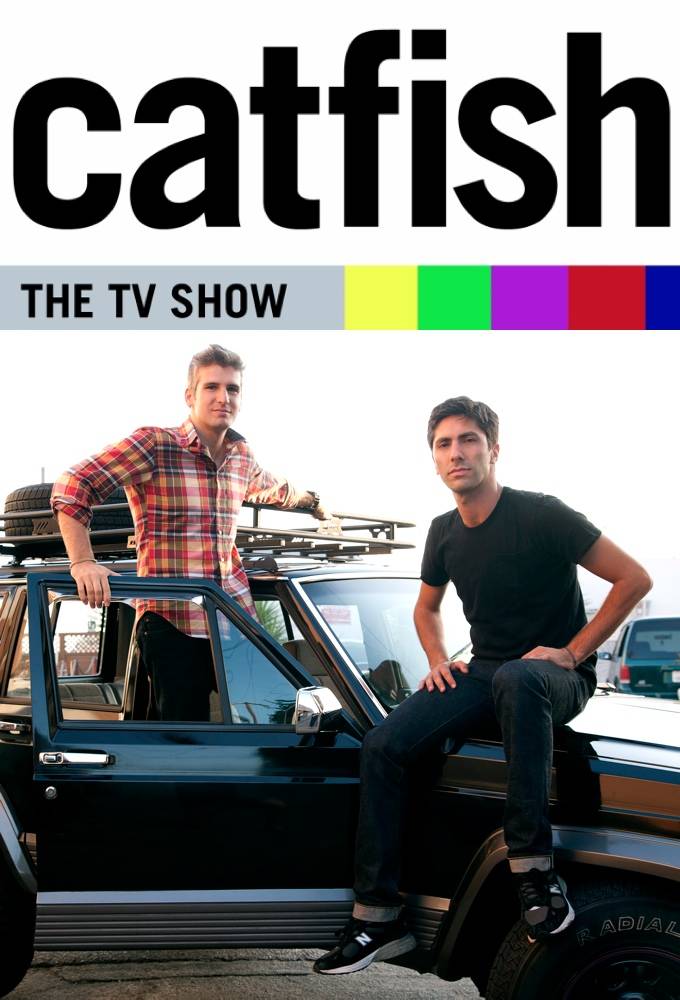
Catfish: The TV Show Font
Fonts in UseCatfish: The TV Show is a reality television series that premiered on MTV in 2012. The show follows Nev Schulman and his team as they investigate individuals who are in online relationships and may not be who they claim to be.
The title of the TV show on the poster features the Trade Gothic LT Bold, a sans-serif typeface initially crafted by Jackson Burke in 1948. A refreshed version of the font, dubbed Trade Gothic Next, was later created by Akira Kobayashi and made available by Linotype in 2009.